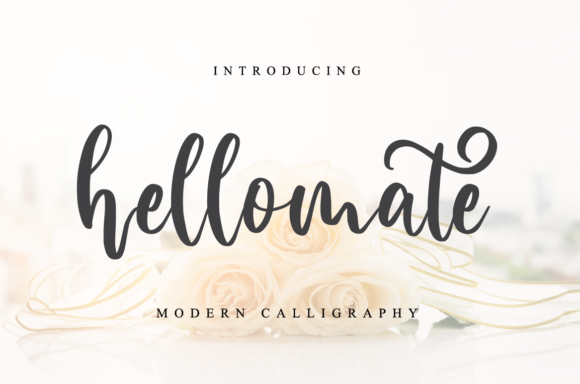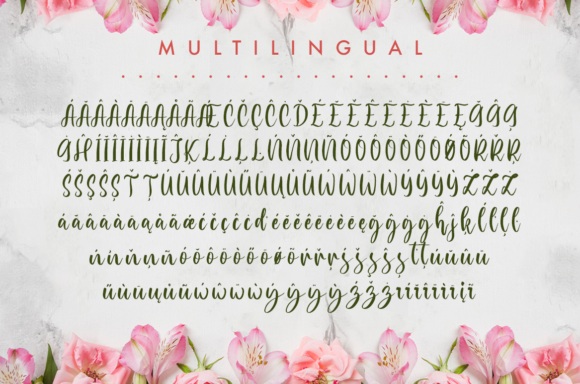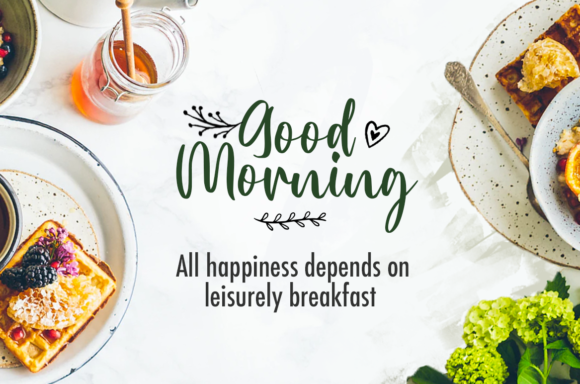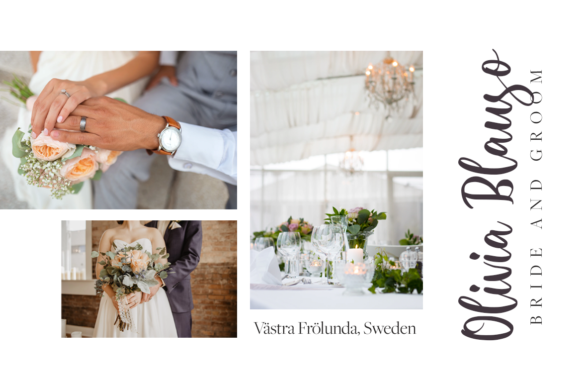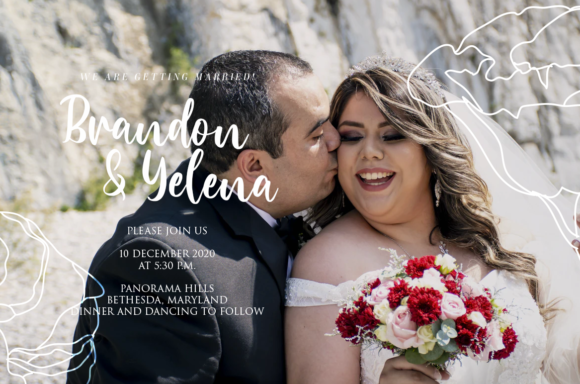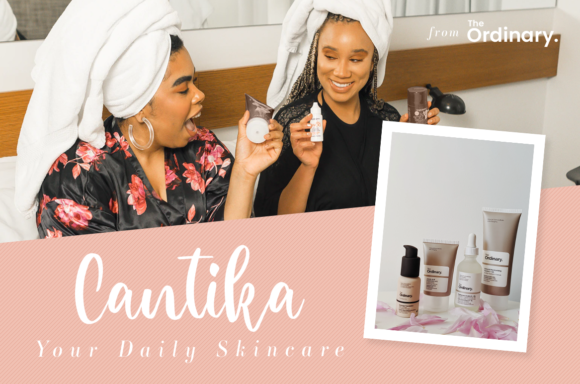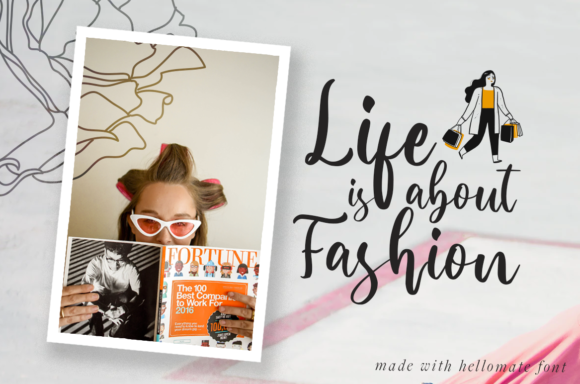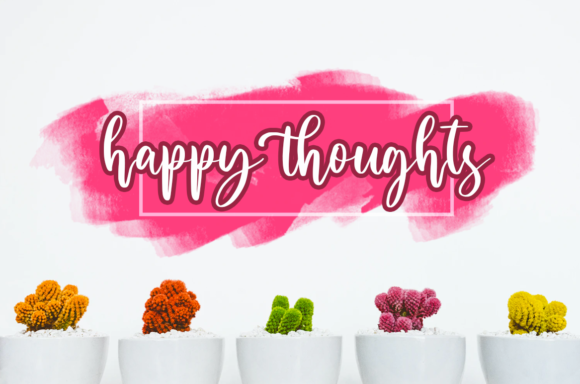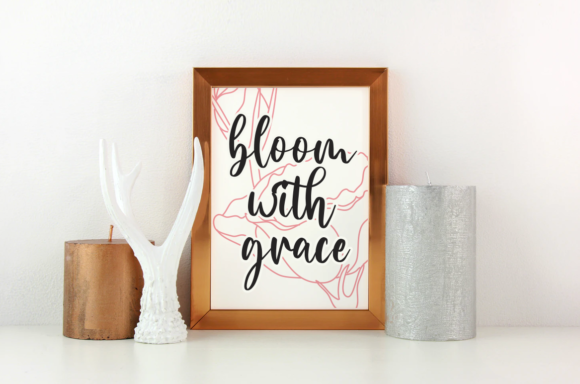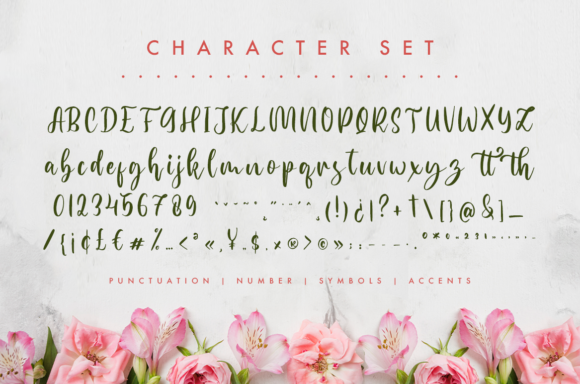
Hellomate Font
About Hellomate Font
Hellomate is a charming and casual handwritten font that adds a delightful touch to your designs. With its friendly and approachable feel, this font is perfect for creating a warm and welcoming atmosphere in your projects.
The cute and casual nature of Hellomate makes it a versatile choice for a wide range of design applications. Whether you’re designing greeting cards, social media graphics, logos, or any other project that requires a friendly and playful vibe, Hellomate is sure to bring a smile to your audience.
The distinct and well-rounded letters of Hellomate contribute to its overall appeal. Each letter is carefully crafted to maintain a balance between legibility and a hand-drawn aesthetic. The result is a font that feels both natural and artistic, adding a touch of authenticity to your designs.
The versatility of Hellomate allows it to be used in various contexts and design styles. Its friendly and approachable nature makes it suitable for both personal and professional projects. Whether you’re creating designs for a children’s event, a casual brand, or a heartfelt message, Hellomate can adapt to your needs and enhance the overall visual impact.
Embrace the versatility of Hellomate and explore its potential for creating spectacular designs. Play around with different sizes, colors, and layouts to fully bring out the charm and character of this font. Its friendly and casual style will help create a connection with your audience and make your designs memorable.
In conclusion, Hellomate is a cute and casual handwritten font that adds a friendly and versatile touch to your designs. With its distinct and well-rounded letters, this font brings a sense of playfulness and authenticity to your projects. Whether you’re designing for personal or professional purposes, Hellomate will infuse your designs with a delightful and inviting feel.